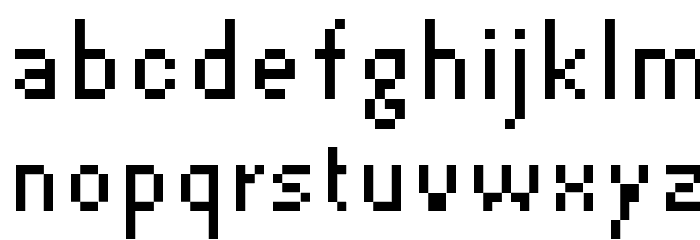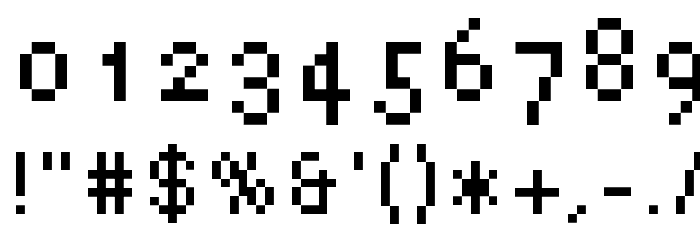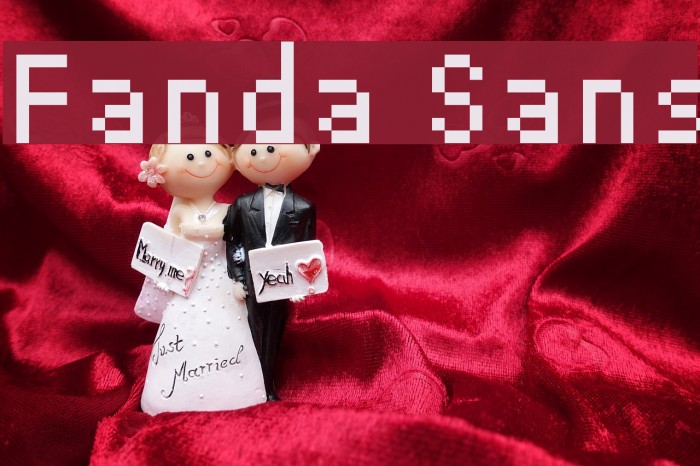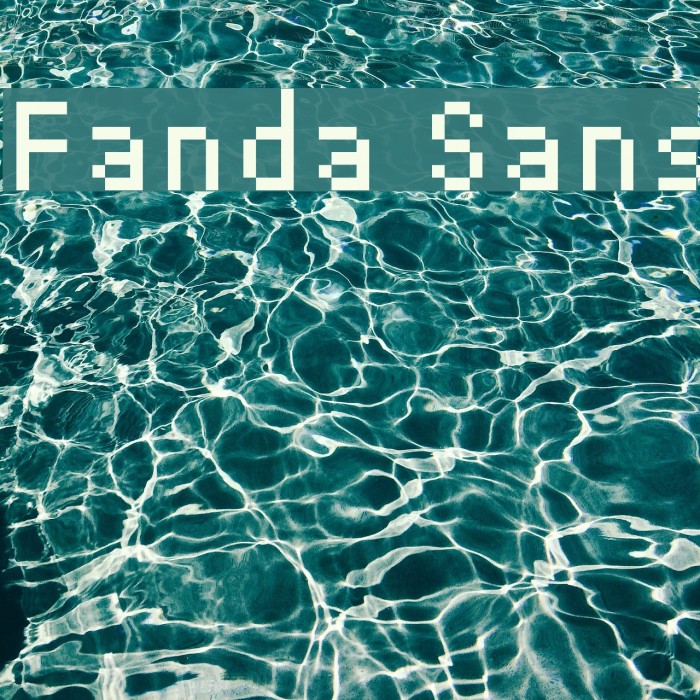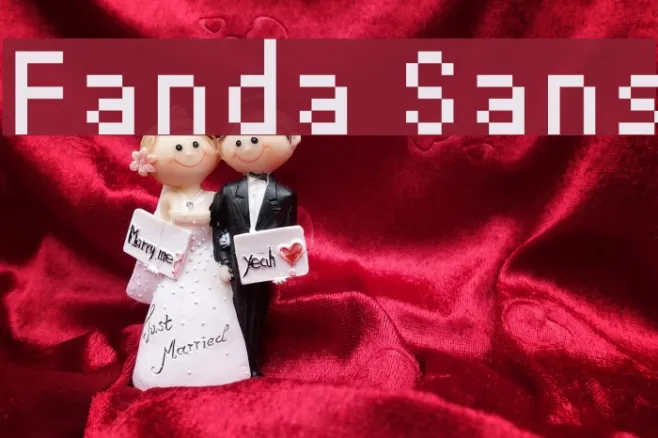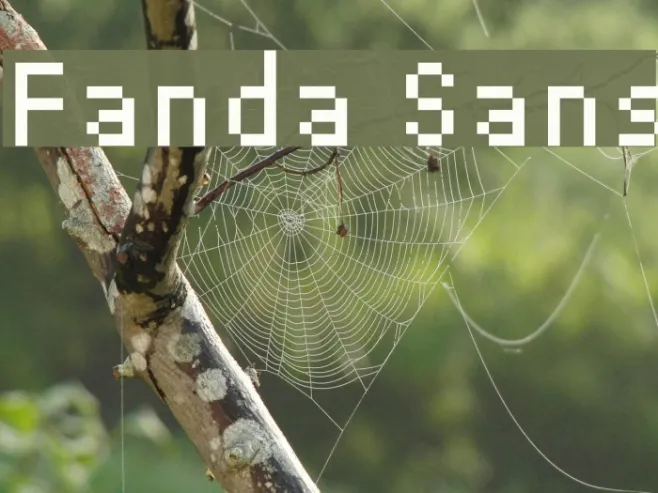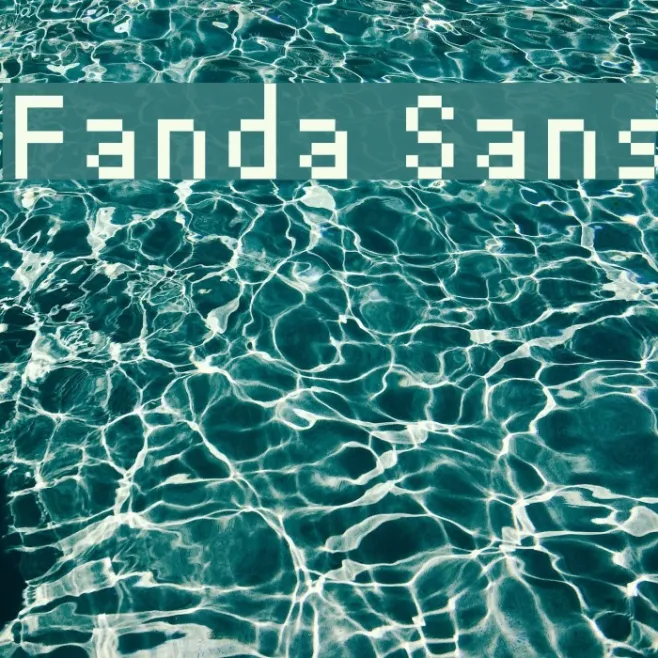
Fanda Sans Font
This font features a pixelated, blocky design reminiscent of early digital displays and retro video games. Each character is constructed with a grid-like precision, giving it a distinctly digital and geometric appearance. The uppercase and lowercase letters maintain a consistent height, enhancing readability while preserving the nostalgic aesthetic. Numbers and special characters follow the same pixelated style, ensuring uniformity across all glyphs. The font's simplicity and clarity make it suitable for projects that aim to evoke a sense of nostalgia or a retro-futuristic vibe.
A pixelated, retro-style font with a digital, geometric design.
- Proposed Projects: Ideal for retro video games, digital art, tech-themed posters, and nostalgic branding.
- Overall Style: Retro, Digital
- Use Case: Headlines, Logos, Display text